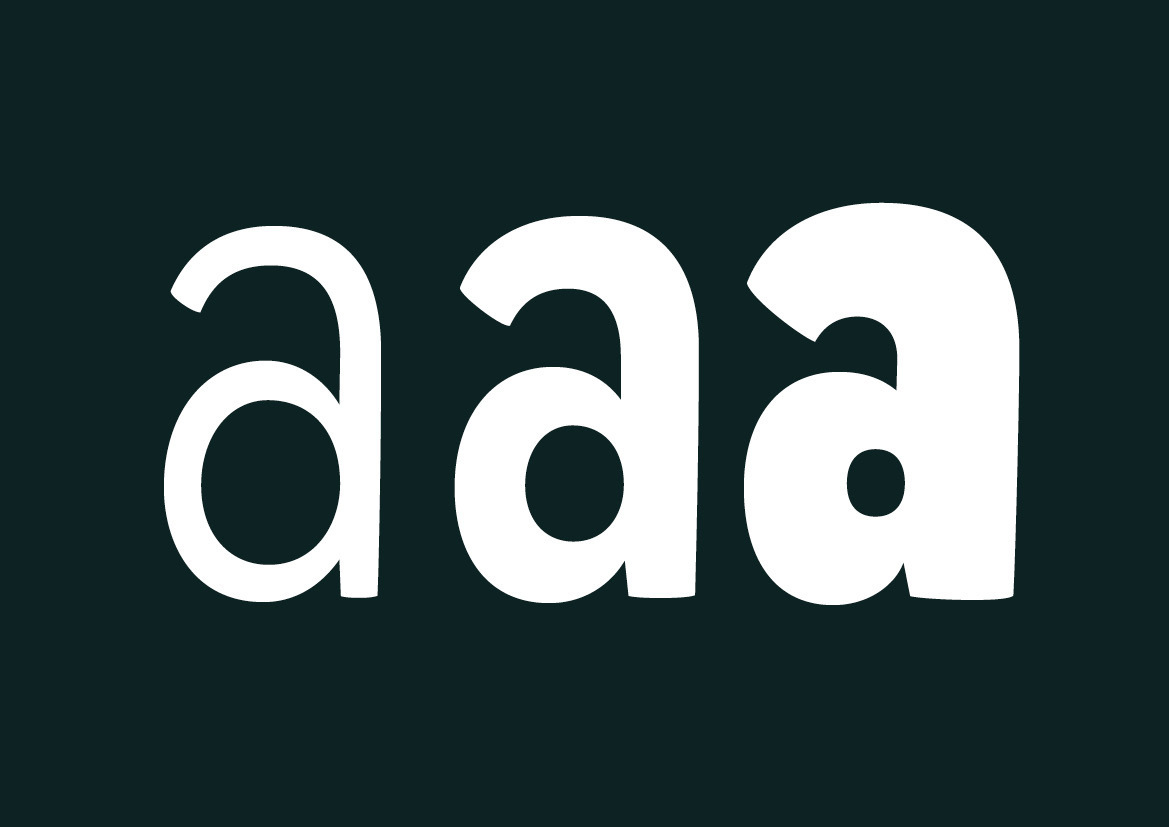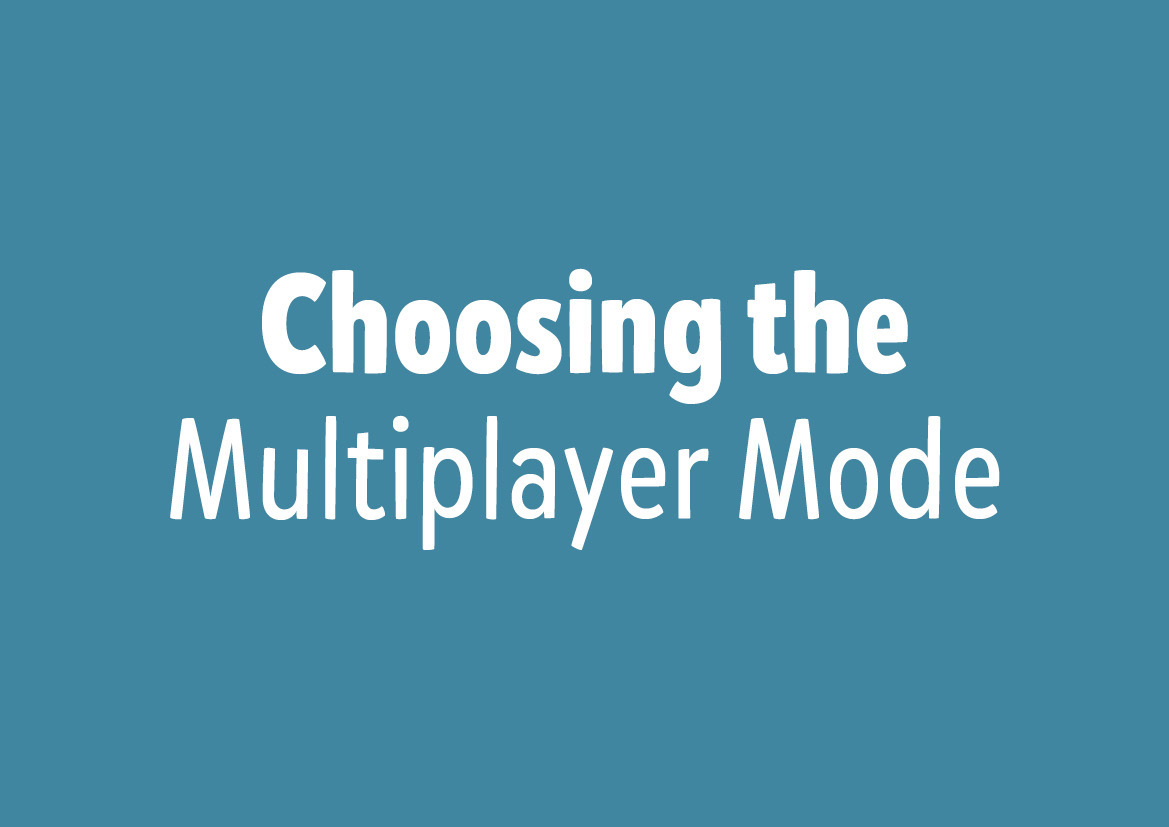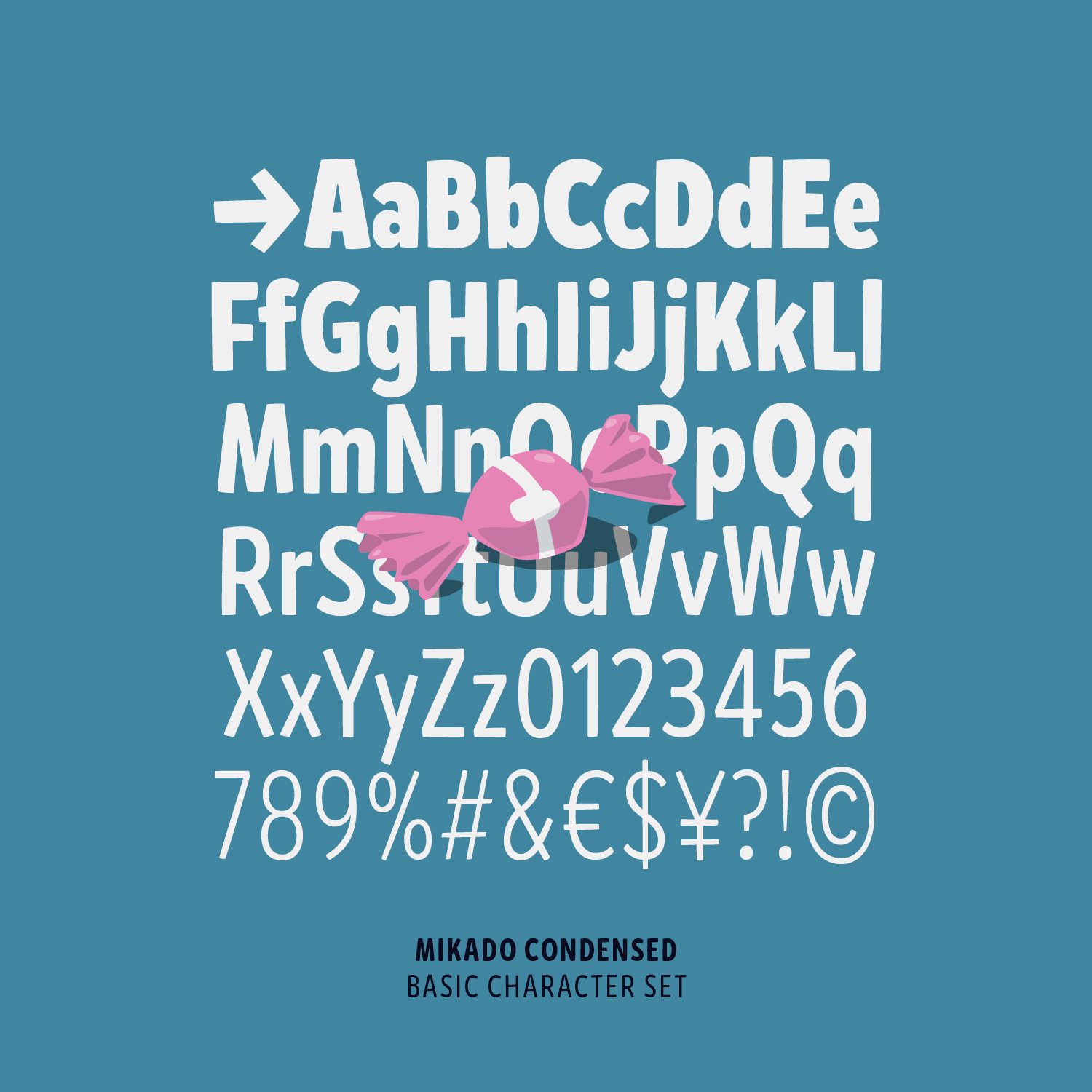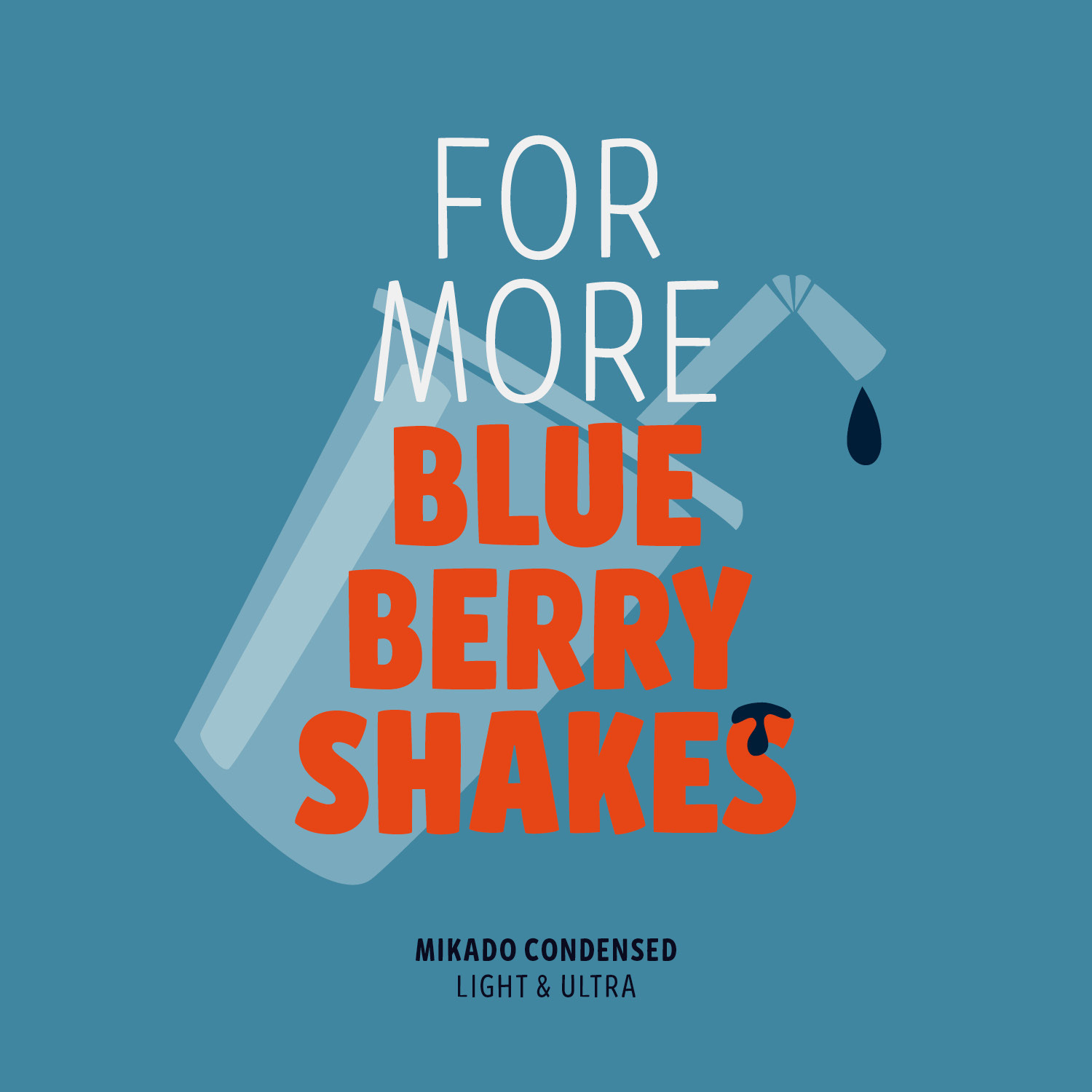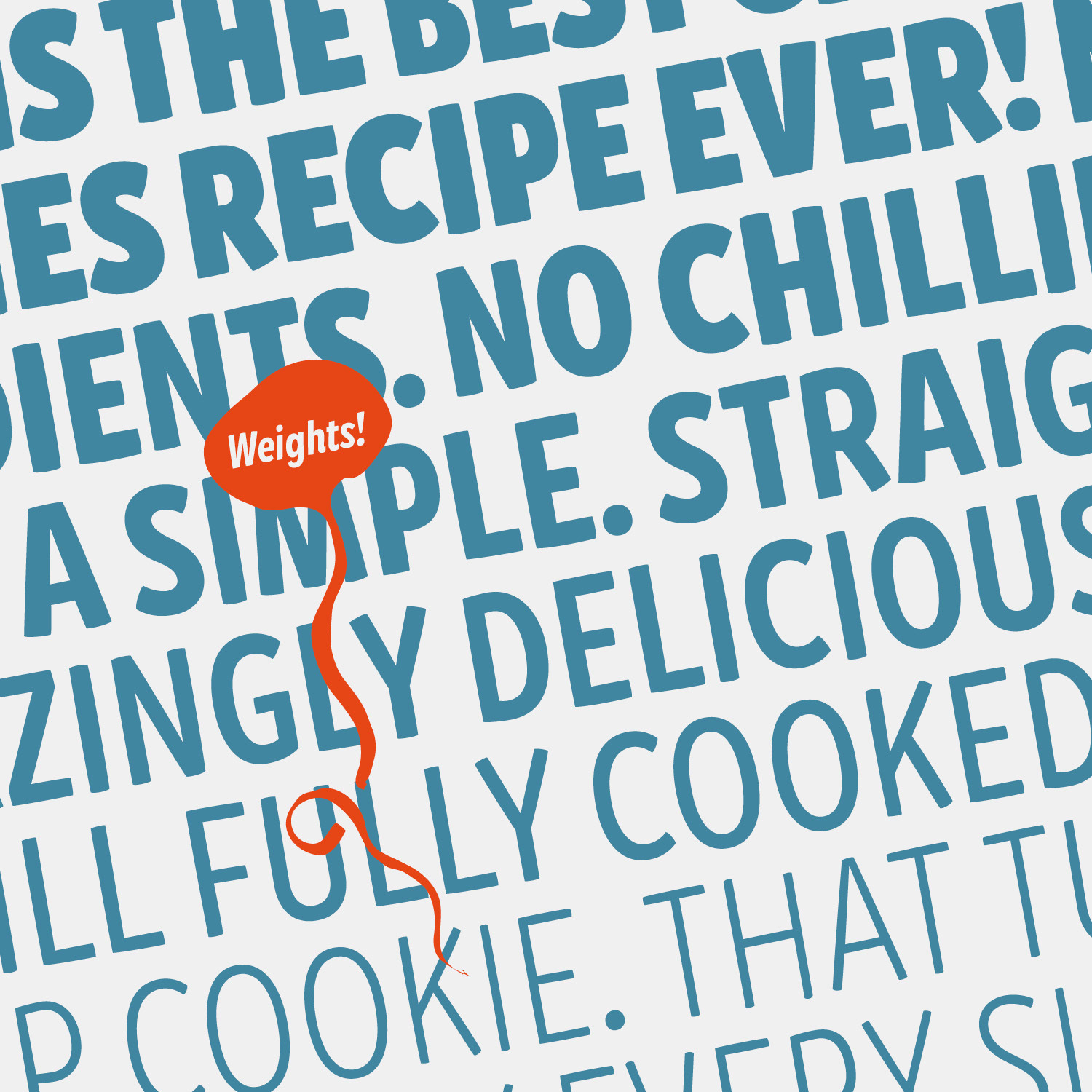
Mikado Condensed and Mikado are intended to be used everywhere where a pleasant feeling should be conveyed: Games, Food, Service or Advertising. Mikado has a positive, kind of “out-of-the-box-appearance” in big sizes, but because of its straight architecture the fonts are also very legible in smaller sizes and longer texts - in print or on screen.
Say “Hi” to the narrow addition to the Mikado Family: Mikado Condensed. Space Saving, powerful, easy and fun – the letterforms are innocent and easygoing on the one hand and prepared for preofessional typographic challenges on the other hand. A big character set, good spacing & kerning and screen optimised fonts make Mikado and Mikado Condensed a good choice for professional usage for games, toys or ice cream.
The thinner weights (Light to Medium) are designed to work even in long texts in small sizes. They should deliver the text ability, while the bolder the weights get more and more bouncy for headlines and big uses. As a special option the type family is also equipped with an super heavy “Ultra” weight. As fat as it can get, shouting with an extra loud voice.
Mikado Condensed can work either together with Mikado for space saving challenges or it can stand for itself. The condensed version has the same characteristics like the “normal width Mikado” but needs less space.
A font of today’s needs has to include more than just the alphabet and some punctuation. Besides a big number of accented letters, making sure that the typeface has a good language support, a font should include several features for excellent typographic work joining forces with the layout applications of the time and of course the user. Here is a selection of what this font family has to offer under the hood.
If two letters have the nature to collide when used in combination a ligature is needed to solve this unwanted event. Ligatures are especially designed solutions for such letter combinations. This font contains a set of ligatures which are automatically substituted as soon as these letter combinations are typed in.
If fractions are needed anywhere an OpenType code makes sure that if you type any numbers combined with a slash between a fraction will automatically be substituted.
Besides the standard letters a font sometimes contains several versions of a letter called alternates. You can exchange the alternate with the standard letter by selecting it through the Opentype feature panel and every letter of the stylistic set will be exchanged. Often this results in a totally different optical appearance of the typeface.
A subscript is a character that is set slightly below the normal line of type. They are used in formulas, mathematical expressions, and specifications of chemical compounds and isotopes, but can have many other uses as well. These characters are not simply ordinary characters reduced in size – to keep them visually consistent with the rest of the font, they are slightly heavier than a reduced-size character would be.
A superscript is a character that is set slightly above the line of type. It has the same weight and size like a subscript character. They are also used in formulas, mathematical expressions and text references, but can have many other uses as well.
Mikado has an extended character set that supports more than a hundred languages. Part of the language coverage is the support for Latin and Cyrillic script.